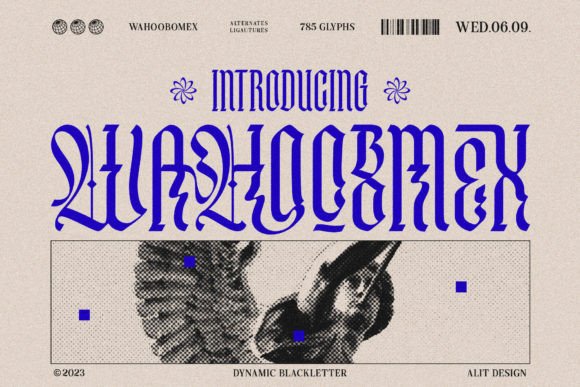
Prepare to step into the realm of artistic expression and embrace the power of authentic typography with the Wahoobomex Dynamic Blackletter Font. Meticulously crafted by the visionary designers at Alit Design, this extraordinary font family captivates with its timeless elegance and contemporary flair.
Journey through history as you explore the rich lineage of blackletter typefaces, seamlessly blended with a refreshing twist of modernity. The Wahoobomex font emerges as a true masterpiece, combining the best of both worlds to unleash your creativity like never before.
Its bold, commanding strokes dance across the page, exuding an aura of strength and stability. Yet, within its intricate details, you'll discover a delicate touch, a whisper of artistic finesse that elevates this font beyond mere aesthetics.
Picture your designs adorned with the Wahoobomex font, each letter a testament to your artistic vision. Whether you're crafting logos that demand attention, branding that exudes timeless sophistication, or invitations that leave a lasting impression, Wahoobomex will elevate your creations to new heights.
Dive into the world of digital art and let your imagination run wild. Create eye-catching social media graphics that capture the essence of your brand, leaving your audience spellbound. Design posters that speak to the soul, evoking emotions and igniting conversations.
But it doesn't stop there. The Wahoobomex font is your perfect partner in crime for any creative endeavor that calls for a touch of intrigue and timeless charm. From album covers that tell a story to book covers that entice readers, this font will transform your projects into works of art.
Join the ranks of those who dare to be different, those who embrace the allure of the extraordinary. With the Wahoobomex Dynamic Blackletter Font, you hold the key to unlocking a world of typographic wonders. Experience the magic of a font that transcends time and trends, leaving an indelible mark on the hearts and minds of your audience.